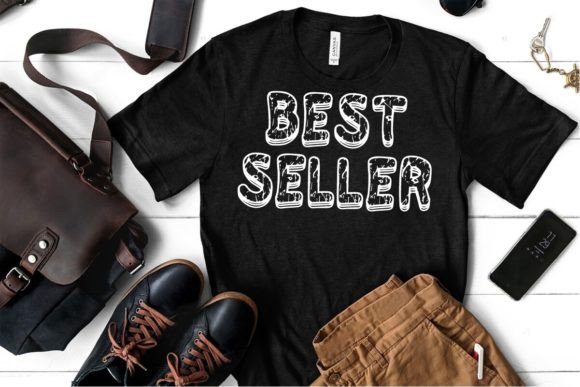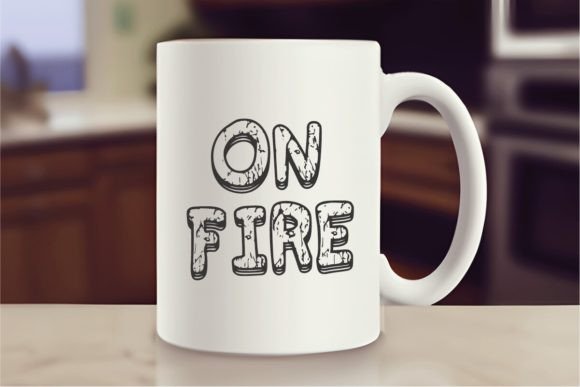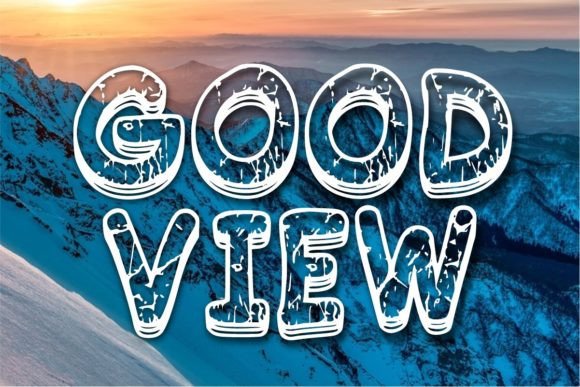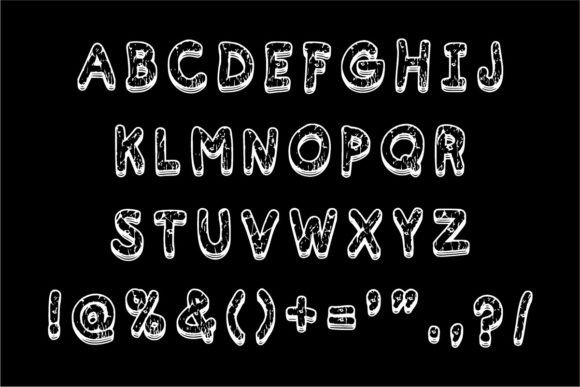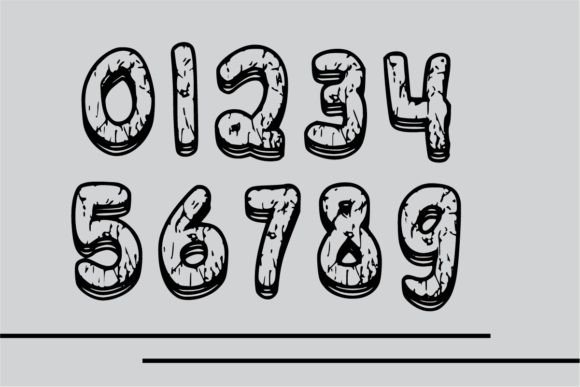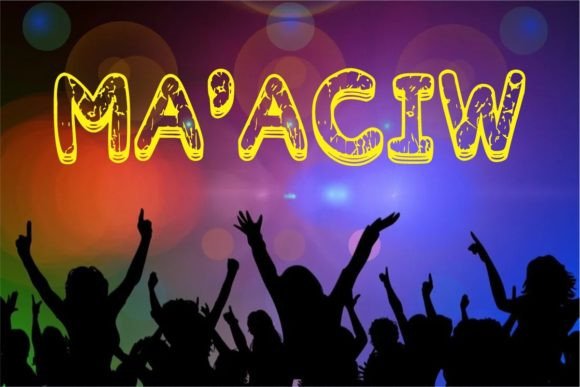
Introduction to Disco Maniac Font
Have you ever been working on a creative project, pouring your heart and soul into it, and suddenly, you need that one special element to make it truly pop? For designers, this moment is all too familiar. The search for the perfect font can be a long and arduous one, but what if we told you that we’ve found the answer to your prayers? Enter the Disco Maniac Font, a retro aesthetic display font that will take your projects to the next level.
This fantastic design resource is perfect for designers who want to add a touch of nostalgia and fun to their work. With its high-quality graphics and transparent background, the Disco Maniac Font is a versatile tool that can be used for a wide range of creative projects, from t-shirts and stickers to book covers and social media posts.
Key Features of Disco Maniac Font
- Unique Disco-inspired design for creative projects, perfect for adding a touch of glamour and fun to your work.
- Perfect for use in graphic design, digital art, and other creative projects where a bold and eye-catching font is required.
Honest Review: Disco Maniac Font
As a designer, I’ve worked with my fair share of fonts, but the Disco Maniac Font is a unique find. Its funky vibe immediately caught my attention, making it perfect for creative projects that require a touch of retro flair.
- High-quality design: The font’s intricate details and bold lines make it stand out from the crowd.
- Limited font styles: While the font has a clear aesthetic, it’s limited to a single style, which might not be suitable for projects requiring multiple font variations.
- No bold or italic versions: This could be a drawback for designers who need to emphasize certain text or create a visual hierarchy.
Overall, I think the Disco Maniac Font is a great addition to any designer’s toolkit. While it has its limitations, its unique design and high-quality construction make it a valuable resource for creative projects.
Disco Maniac Font Overview
Common Use Cases for Disco Maniac Font
The Disco Maniac Font is perfect for use in party invitations, social media graphics, and other creative projects that require a fun and energetic vibe. Its high-quality design and transparent background make it an excellent choice for designers who want to add a touch of glamour to their work.